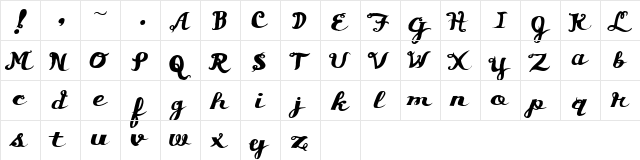
Asswipe Regular
Design Context for Asswipe Typeface
Asswipe is a composed and adaptable typeface that performs quietly and consistently across a wide range of design contexts.